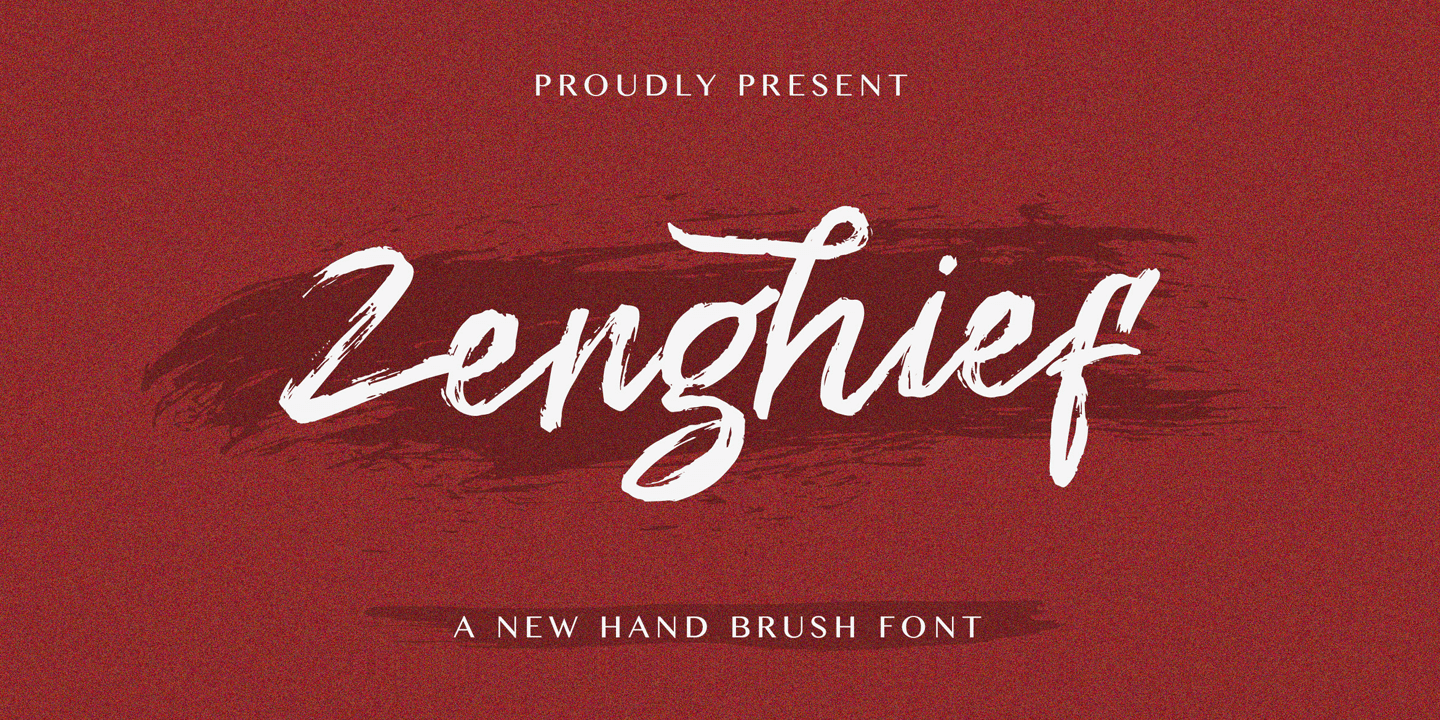
The Zenghief Font excels in various design applications including martial arts dojo branding, fighting game tournament marketing, combat sports communications, action movie poster materials, warrior training academy identities, martial arts equipment promotions, combat championship signage, action hero documentation, fighting spirit packaging, and distinguished combat projects that demand warrior authenticity and martial sophistication.
What makes the Zenghief Font exciting is its powerful embodiment of martial arts strength and warrior determination through letterforms that capture the essence of combat discipline and the fierce spirit of fighting champions. This typeface demonstrates exceptional force through carefully crafted characters that suggest the dynamic movement of martial arts techniques, the unwavering determination of warrior training, and the disciplined power that makes combat sports so physically demanding and mentally strengthening. The font's warrior personality makes it perfect for martial arts schools and combat sports organizations seeking to communicate fighting authenticity, warrior strength, and the kind of martial discipline that creates memorable combat experiences through typography that literally fights with warrior precision.
The Zenghief Font family typically includes powerful weight variations that enhance the martial aesthetic, featuring combat-inspired styling options and extended character sets optimized for fighting communications and warrior applications. These family options often include martial-inspired alternates, combat symbols, and warrior decorative elements that provide designers with comprehensive tools for creating authentically martial typography that celebrates fighting spirit while maintaining contemporary design appeal and combat credibility.
Martial arts professionals and combat sports organizations consistently select Zenghief Font Free Download for projects requiring typography that communicates warrior authenticity and martial sophistication. This typeface delivers exceptional performance in martial marketing, combat branding, and fighting communications where establishing strength and creating powerful warrior atmosphere is essential for martial engagement. The font's combat character makes it particularly effective for dojo and tournament applications. Download Zenghief Font Free Download today to access this powerfully martial typeface that transforms combat communications with its warrior elegance and fighting sophistication, creating compelling martial experiences that honor the magnificent discipline of combat arts while celebrating the warrior strength that defines authentic martial culture and fighting excellence.